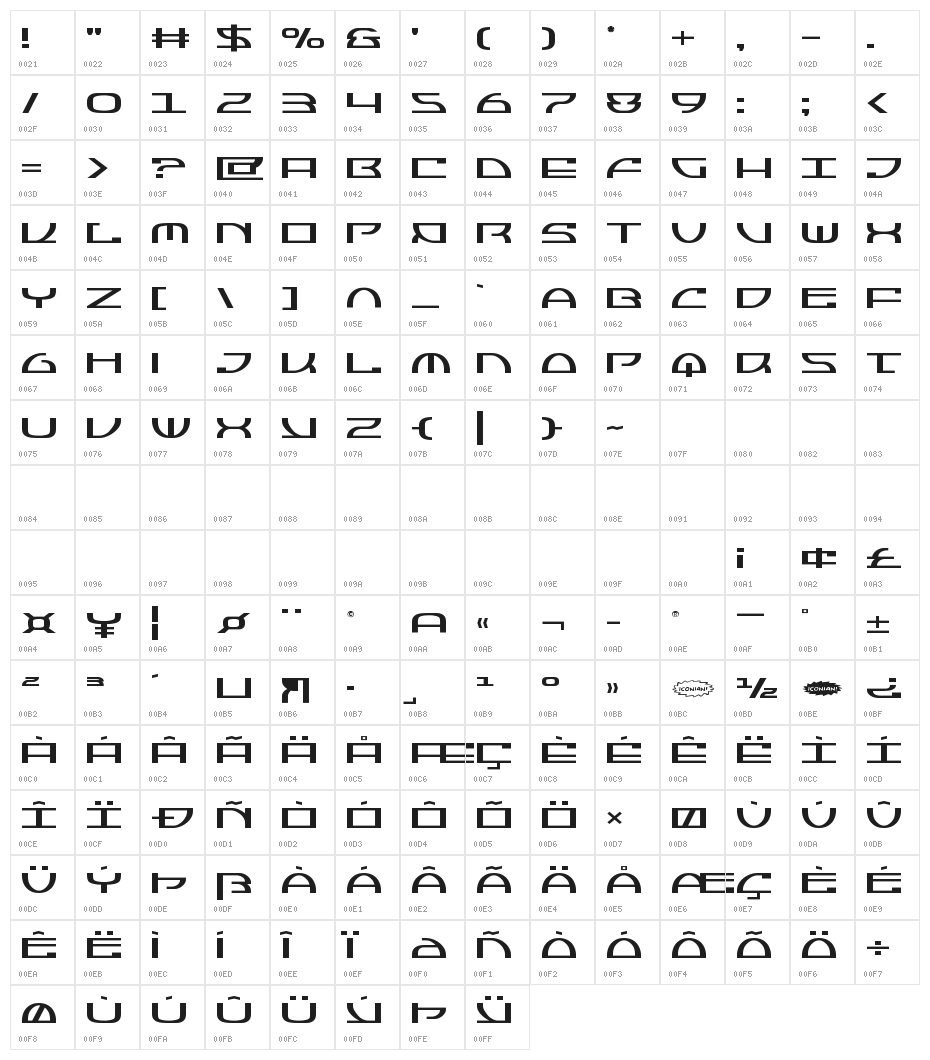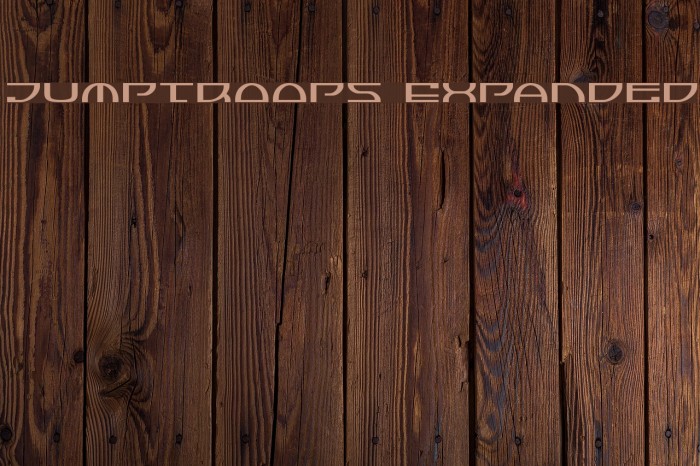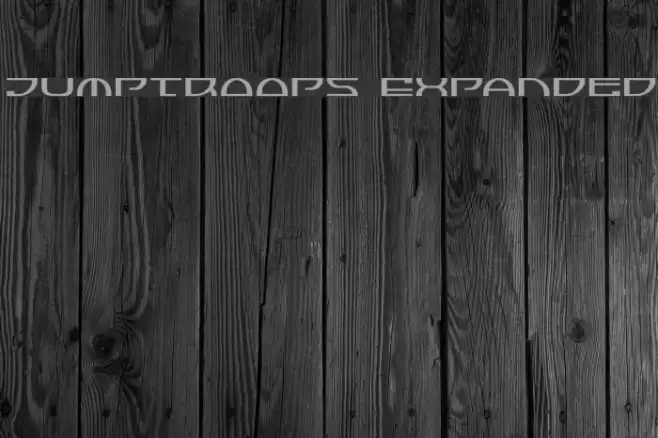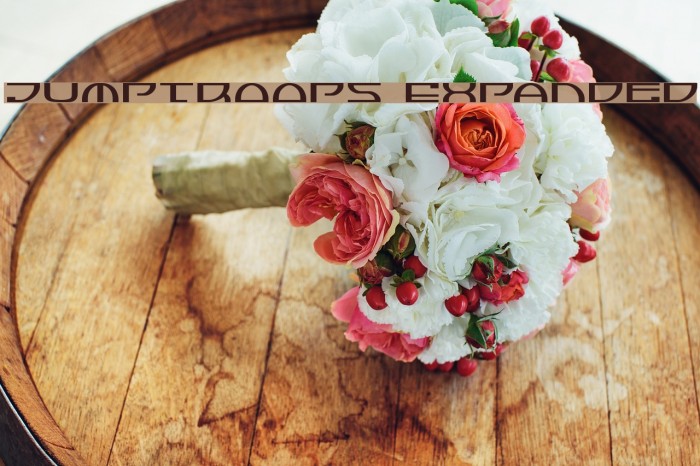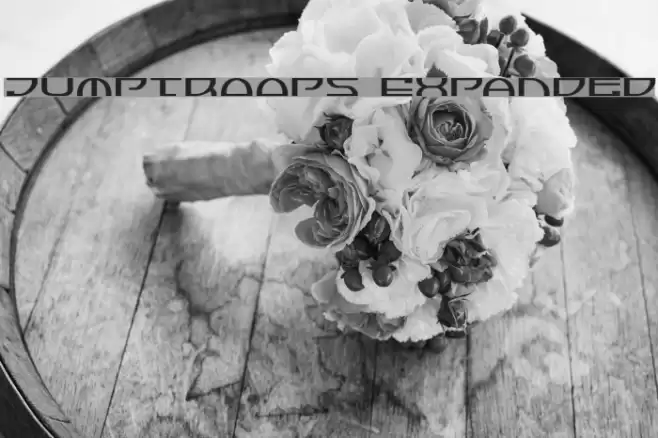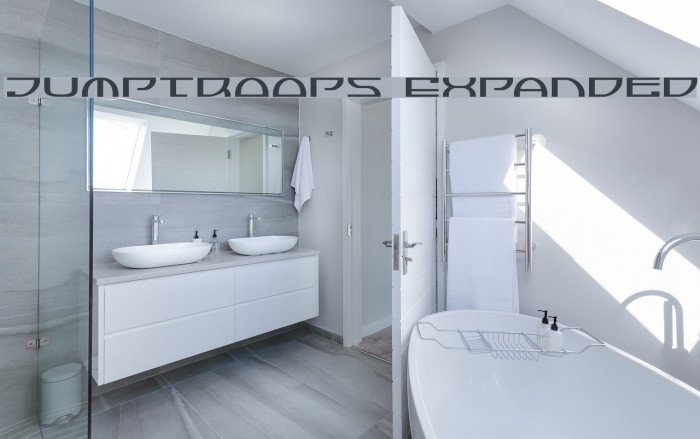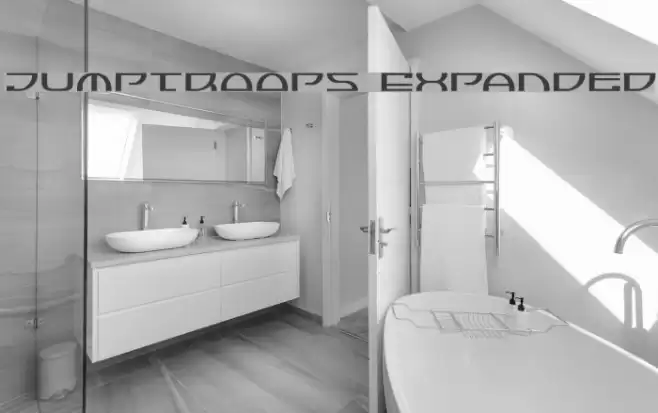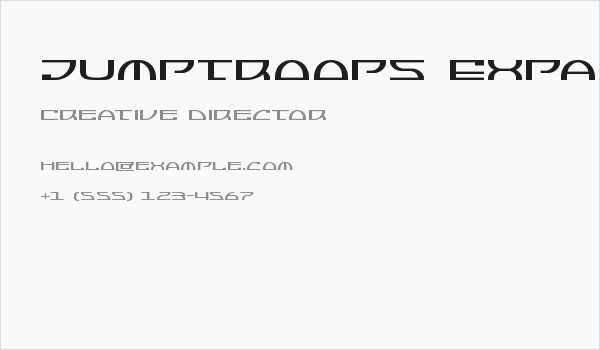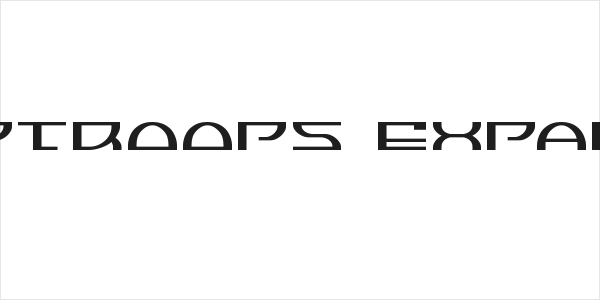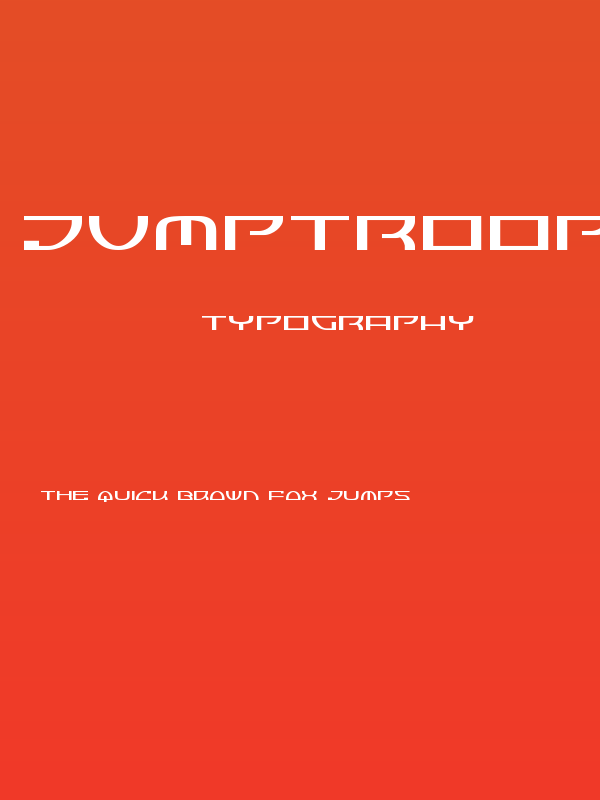
Jumptroops Expanded Font
Jumptroops Expanded Description
This font features a futuristic and geometric design, characterized by its bold and angular letterforms. The characters exhibit a unique blend of sharp edges and smooth curves, creating a dynamic and modern appearance. The uppercase and lowercase letters maintain a consistent style, with a distinct emphasis on horizontal and vertical lines. The numerals and special characters follow the same design principles, ensuring a cohesive look across all elements. The font's expanded width gives it a commanding presence, making it ideal for attention-grabbing headlines and display purposes.
| Proposed Projects | Ideal for sci-fi themed projects, technology branding, video game titles, and futuristic posters. |